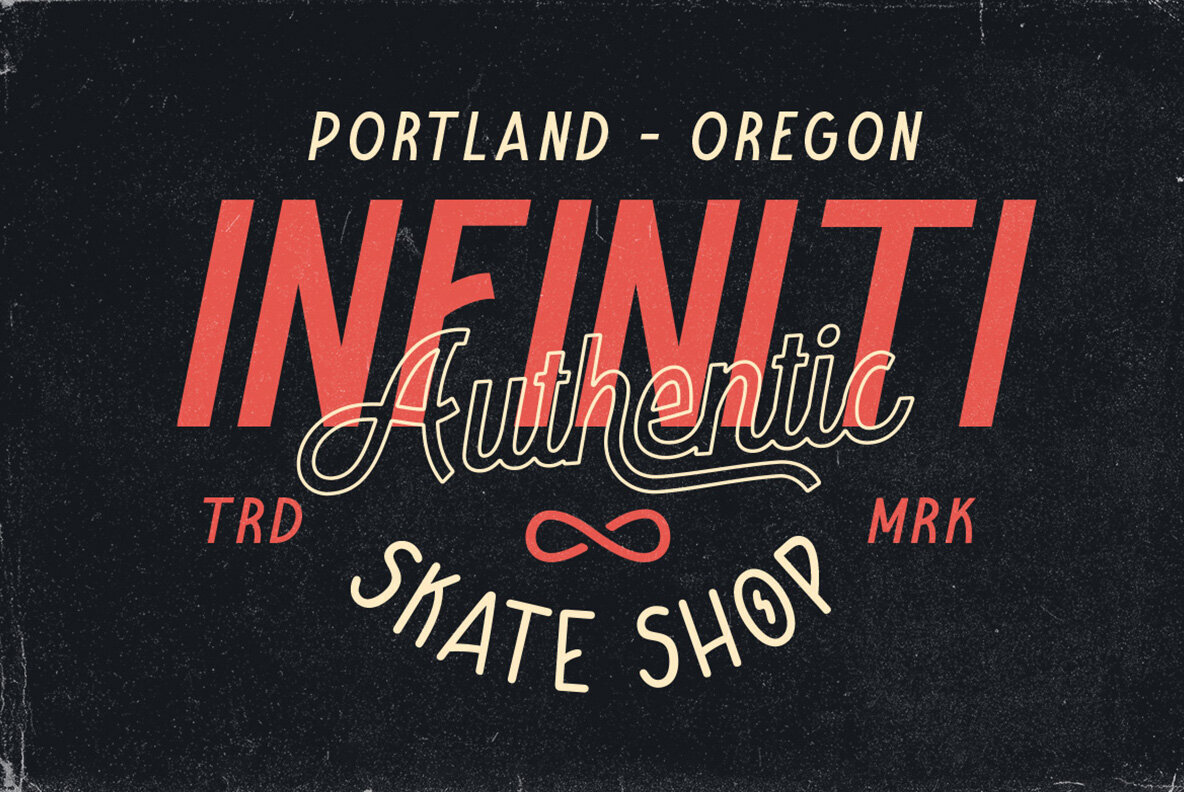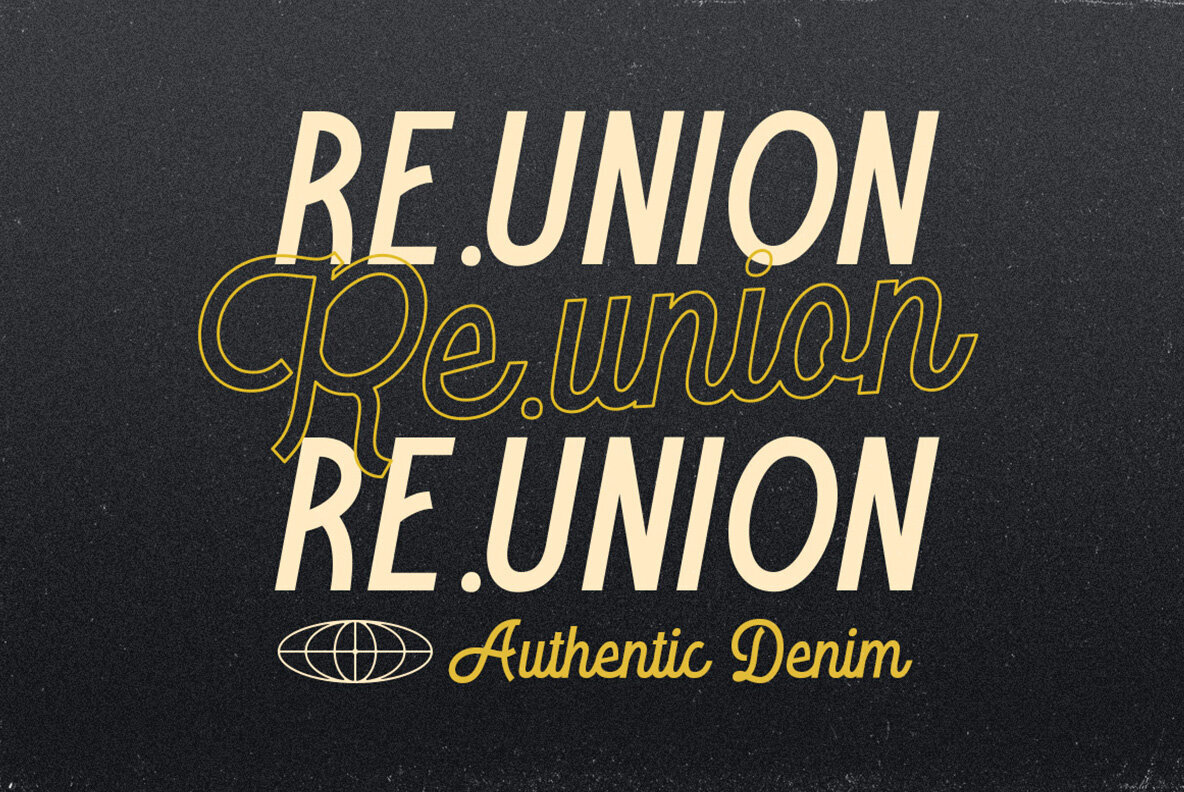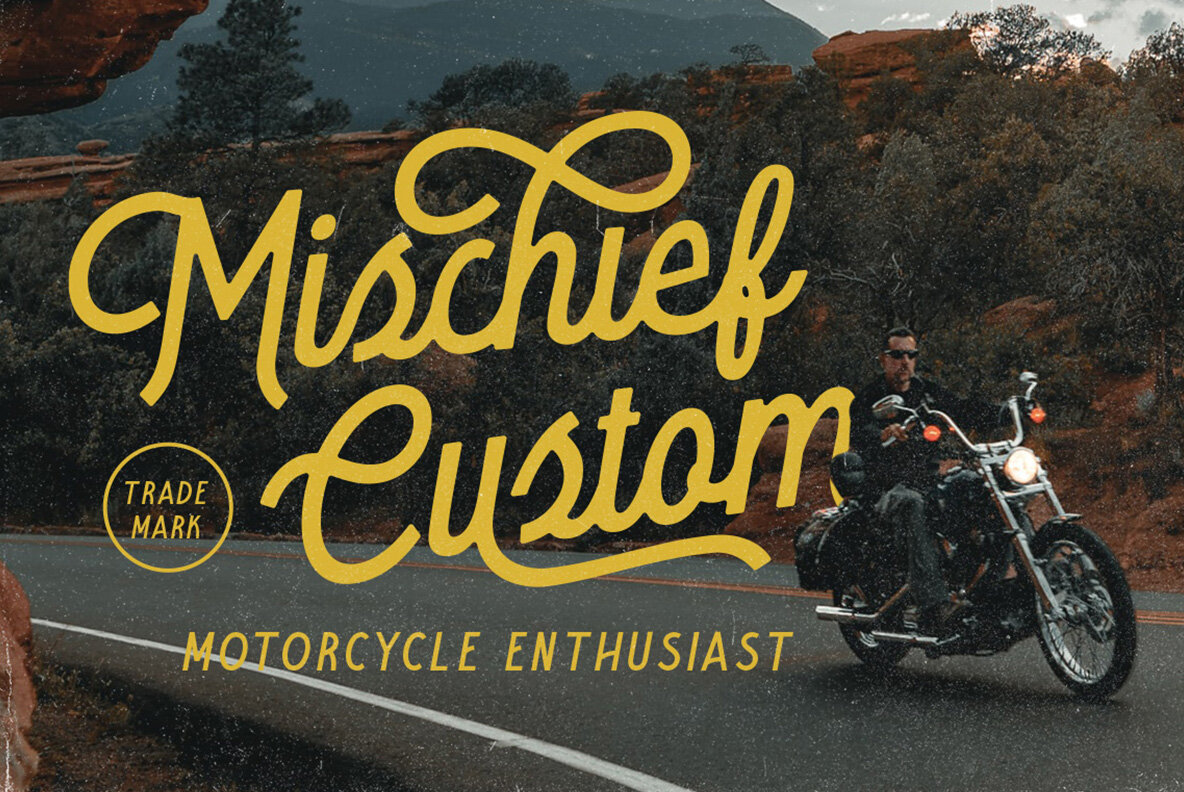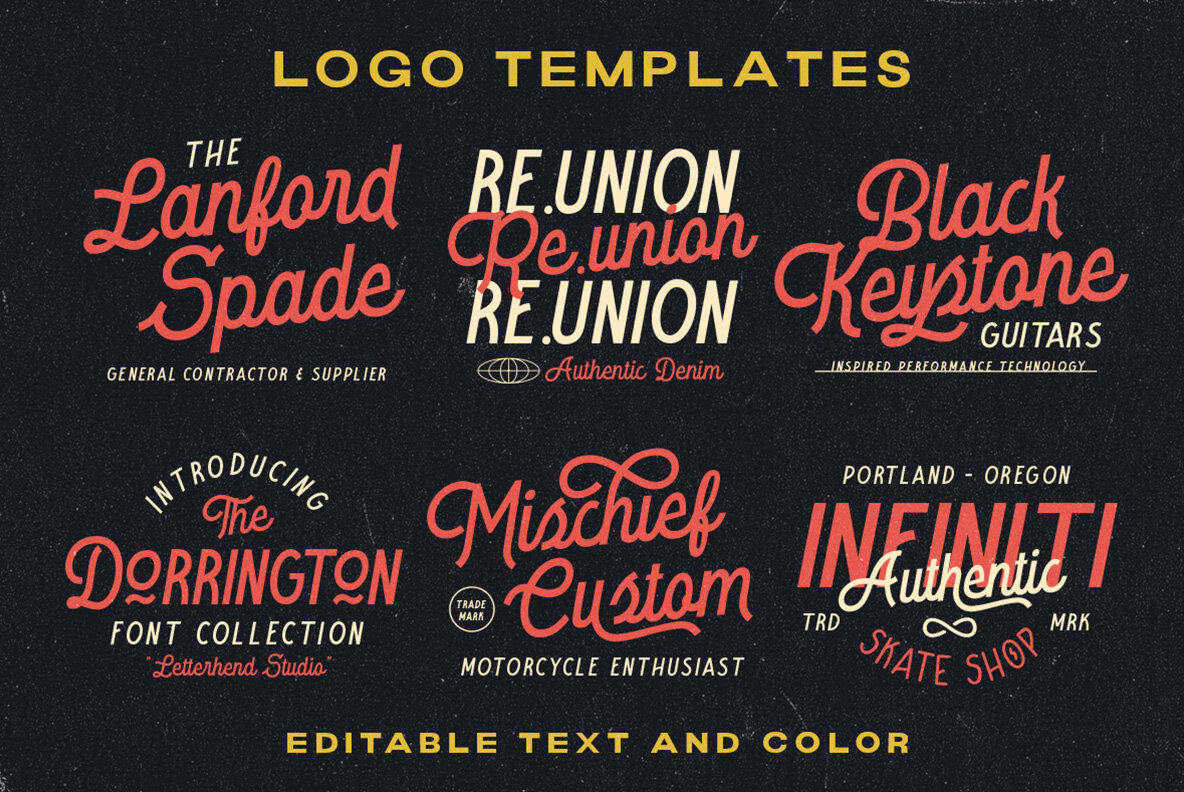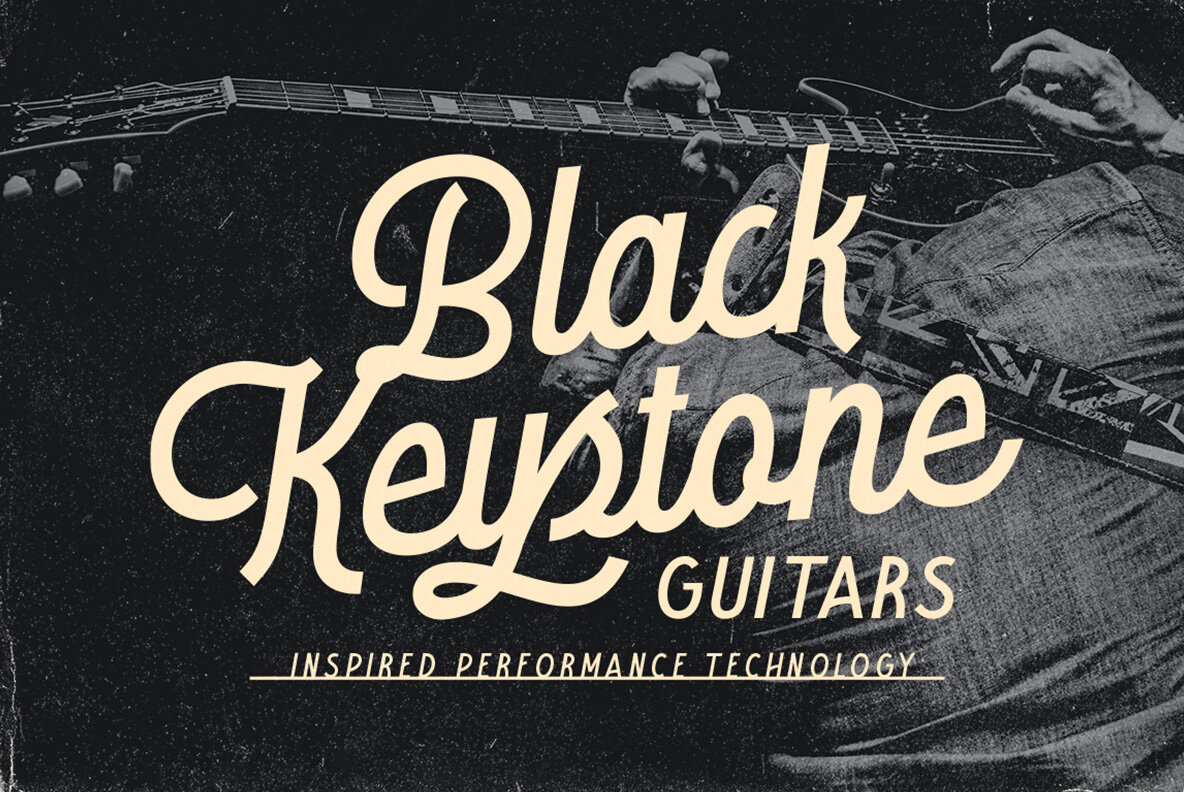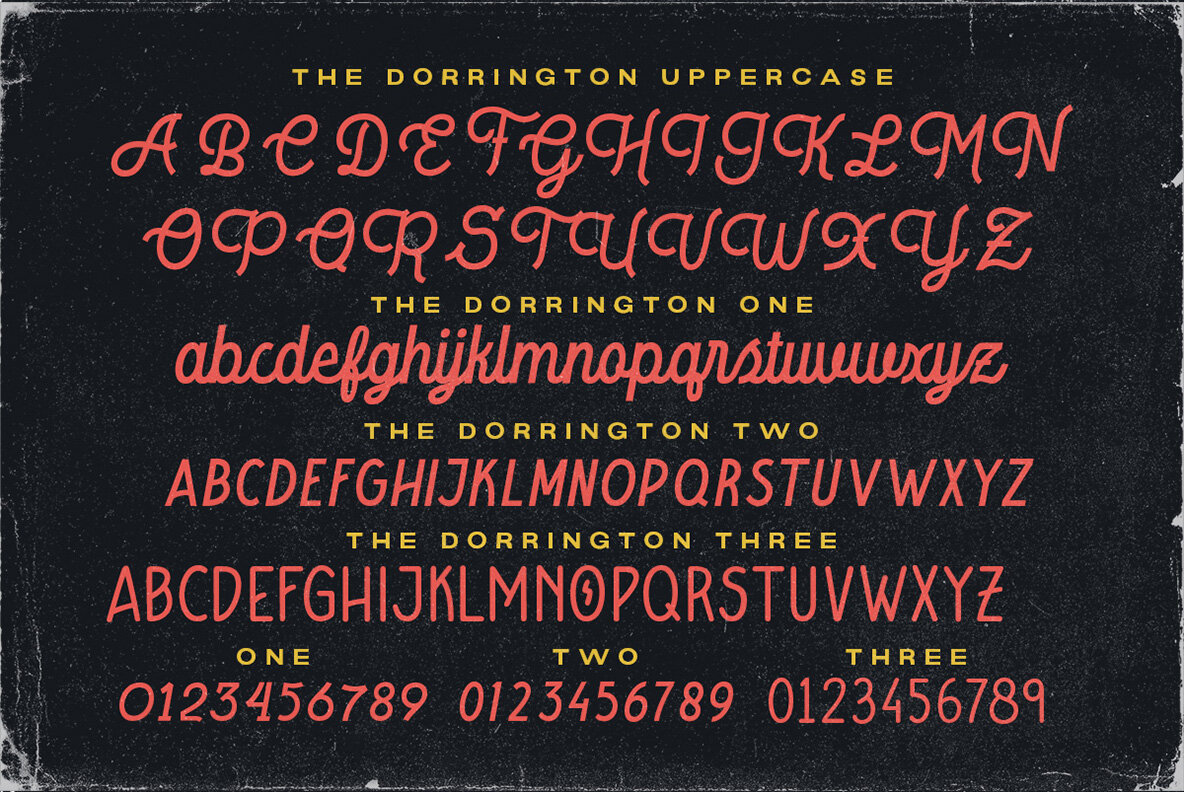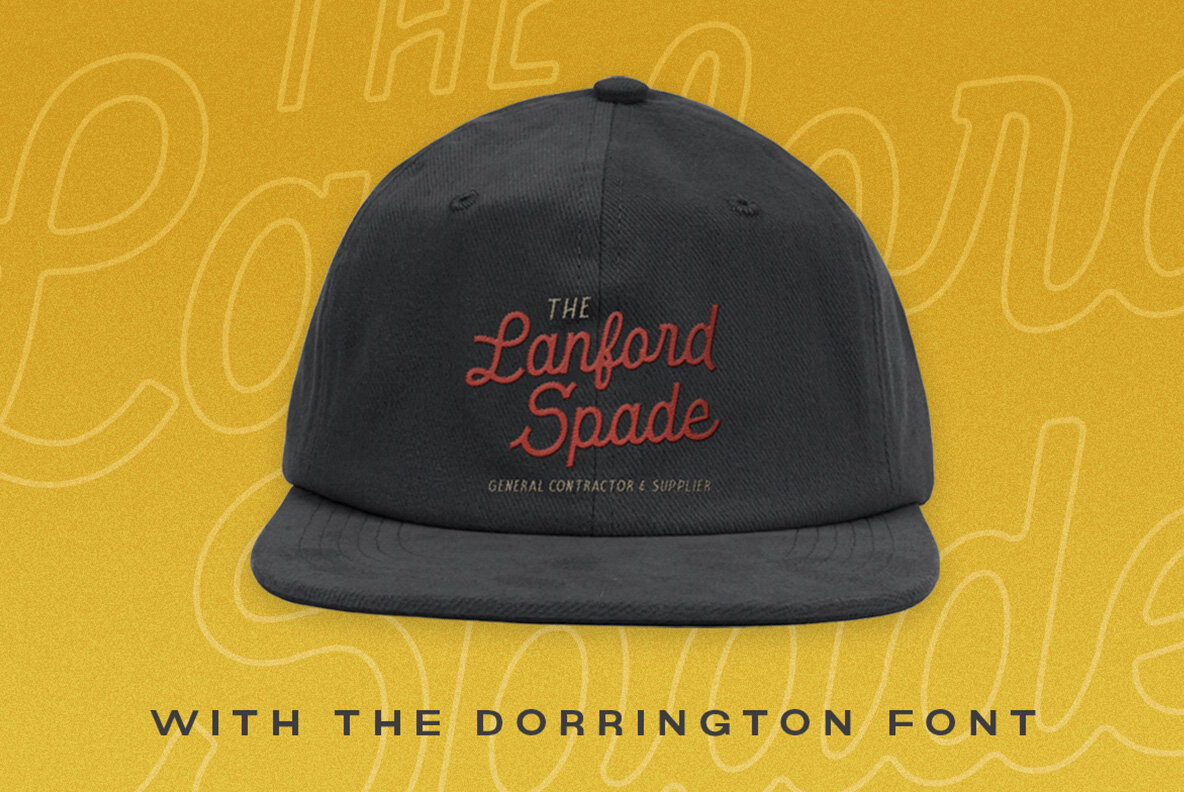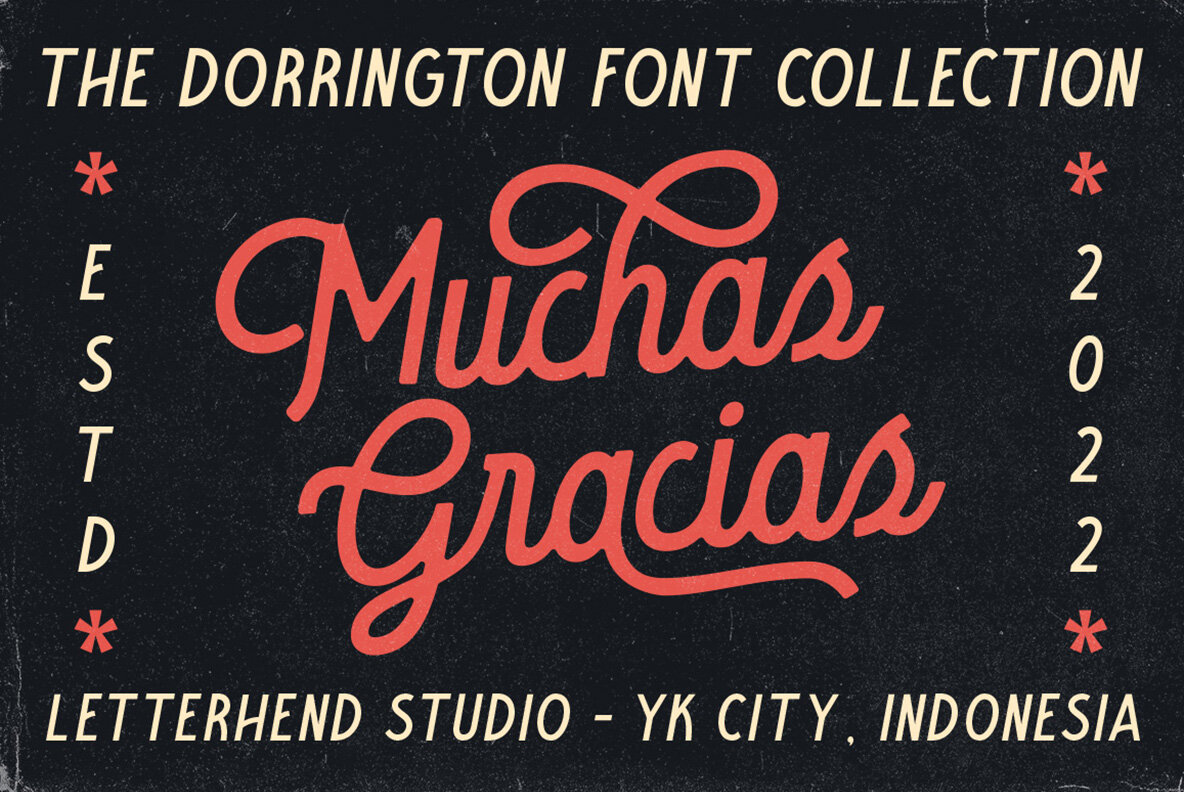
The Dorrington Font
This font pack offers a unique and stylish solution to your branding needs. With three fonts in one, you can create logos or other formal forms that are perfect for any occasion!
Features :
- 2 Monoline Script Font and 1 Sans serif font
- pre-made logo
- uppercase & lowercase
- numbers and punctuation
- multilingual
- alternates & ligatures